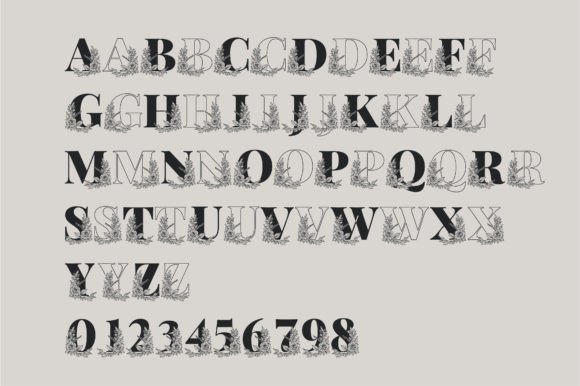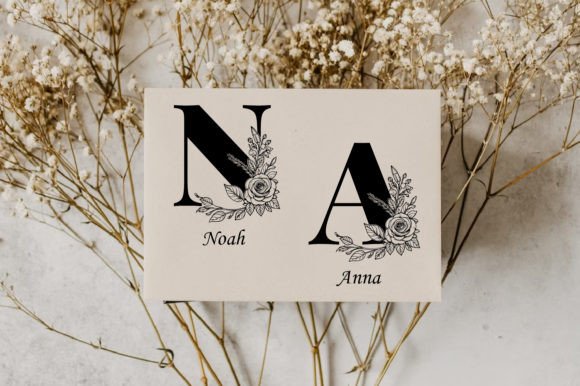
Introduction to Kalia Monogram Font
Do you remember the moment when you finally found the perfect font for your creative project? The one that elevates your design to the next level and makes it truly special? For designers, this moment is like striking gold – and we’re about to share a secret that will make it happen.
Meet the Kalia Monogram Font, a remarkably delicate and stylish decorative font that’s an incredible asset for any project. Whether you’re working on a wedding invitation, a logo, or a branding campaign, this high-quality font will add a touch of sophistication and elegance that’s hard to find elsewhere.
Key Features of Kalia Monogram Font
• High-quality design suitable for creative projects, including wedding invitations, social media graphics, and branding materials.
• Comes with a transparent background, allowing for easy customization and integration with various design elements.
• Features a unique, hand-drawn design style, making it an excellent choice for those seeking a distinctive and creative look.
• Supports a wide range of resolutions and sizes, from small social media icons to large-scale branding materials.
• Perfect for designers looking for a high-quality, customizable font to elevate their design projects.
Honest Review: Kalia Monogram Font
As a designer, I’m always on the lookout for high-quality design resources that can elevate my creative projects. The Kalia Monogram Font is one such resource that caught my attention.
What works well about the Kalia Monogram Font is its versatility. The font comes in various styles, making it suitable for a wide range of design applications. The high-quality design of the font ensures that it looks great on any background, including a transparent background, which is a big plus for me.
• ✨ Stylish and modern design
• ✨ Wide range of styles to choose from
• ✨ Suitable for various design applications
However, I do have a few limitations to mention. The font is not as customizable as I would like it to be, and the options for editing are limited. Additionally, the font may not be compatible with all operating systems, which is something to consider when using it for a design project.
Overall, I’m impressed with the Kalia Monogram Font. It’s a great design resource that can add a touch of elegance to any creative project. With its high-quality design and wide range of styles, it’s definitely worth considering for your next design project.
Introduction to Kalia Monogram Font
The Kalia Monogram Font is a unique and stylish design resource that can elevate your creative project to the next level. With its high quality and elegant design, it’s perfect for any project that requires a touch of sophistication.
Tips for Getting the Most Out of Kalia Monogram Font
To get the most out of the Kalia Monogram Font, try experimenting with different font sizes, colors, and arrangements. You can also combine it with other design elements to create a unique and eye-catching design.
The Kalia Monogram Font is perfect for a variety of projects, including:
• Wedding invitations and stationery
• Business cards and branding materials
• Event and party invitations
• Personalized gifts and stationery